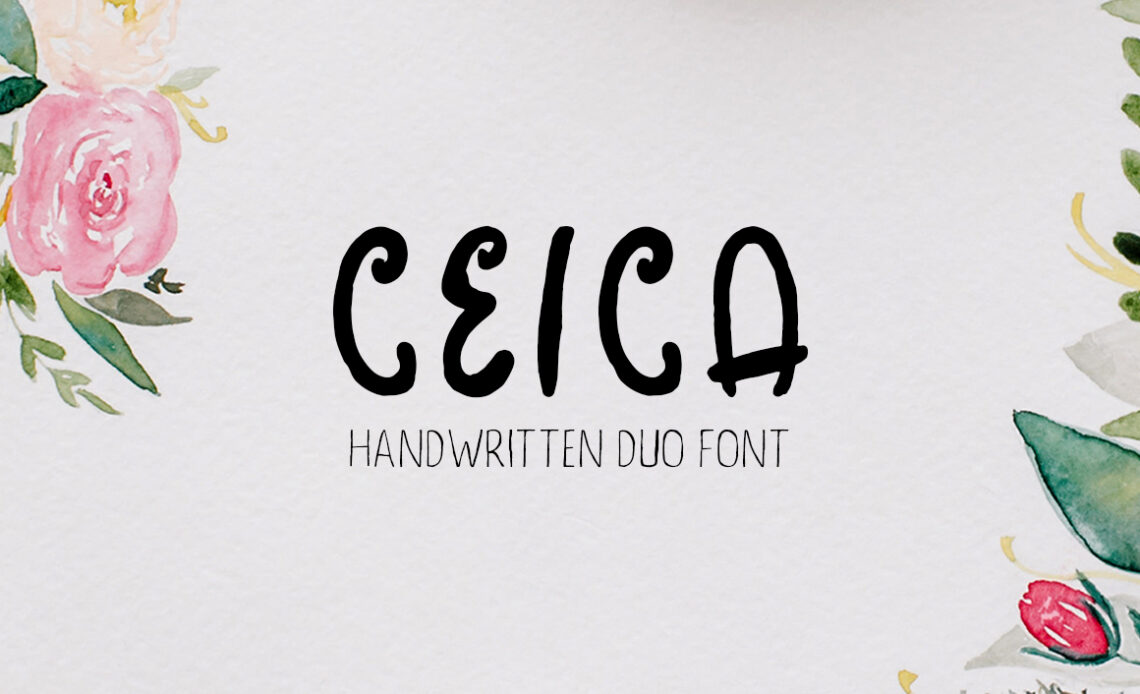
Ceica Duo Font
Dive into the boundless world of creativity with Ceica Duo Font, a calligraphic masterpiece that captures the essence of handwritten beauty. This dual-edged brush script font, skillfully crafted by Creative Tacos, unveils a mesmerizing dance of uppercase and lowercase characters, punctuation marks, and a treasure trove of alternatives, all poised to elevate your designs to new heights.
With Ceica Duo Font, you hold the key to unlocking a world of design possibilities. Its uppercase letters, when adorned with a wide-set spacing, exude an aura of class and sophistication. Alternatively, let the font's natural charm shine through as you combine uppercase and lowercase letters to create timeless pieces that transcend time.
Ceica Duo Font's versatility knows no bounds. It seamlessly adapts to a breathtaking array of design projects, from handwritten quotes that touch the soul to branding and logo creations that leave a lasting impression. Unleash your creativity in the realm of merchandise, social media posts, and captivating displays. Let Ceica Duo Font guide you as you craft headers that demand attention, invitations that evoke elegance, and save-the-date announcements that ignite anticipation.
With Ceica Duo Font, weddings, titles, and product packaging take on a new life, imbued with a touch of exquisite charm. Its versatility extends to the digital realm, where it graces screens in presentations and website designs, captivating audiences with its undeniable allure.
Ceica Duo Font is more than just a font; it's an invitation to explore the depths of your creativity. Its harmonious blend of classic and contemporary elements empowers you to craft designs that resonate with your audience on a profound level. Embrace Ceica Duo Font and unlock the boundless potential within your imagination.